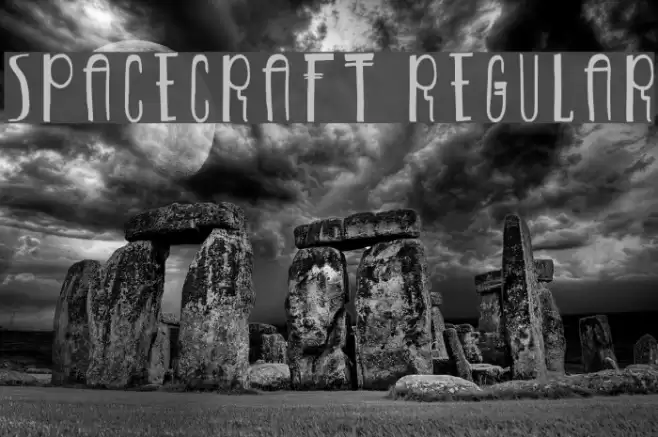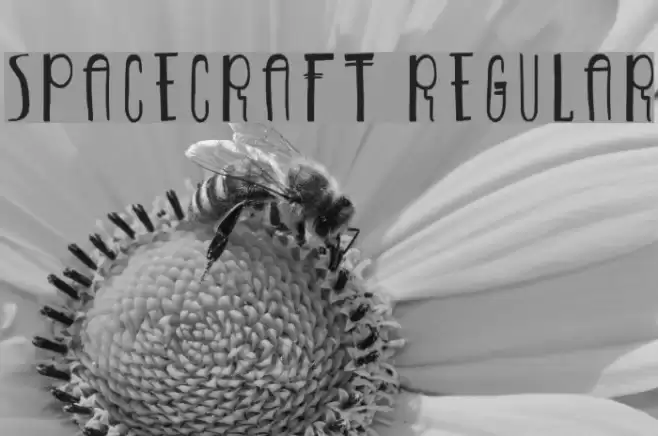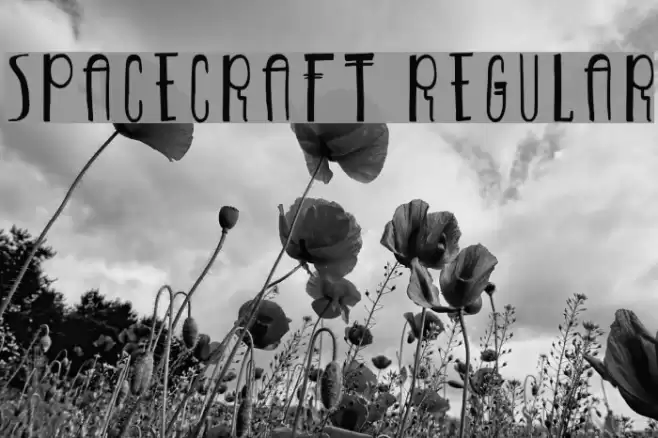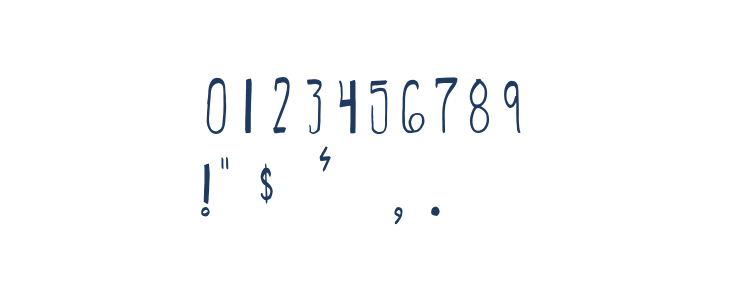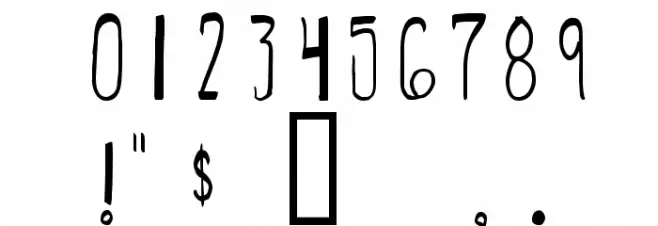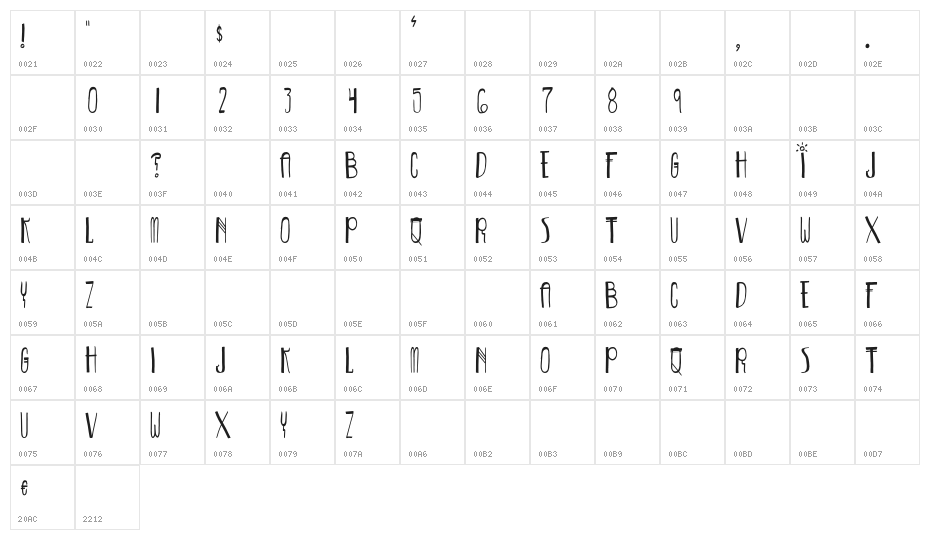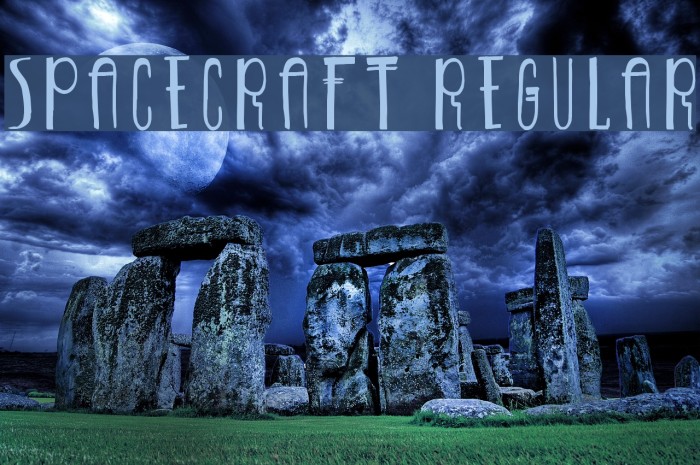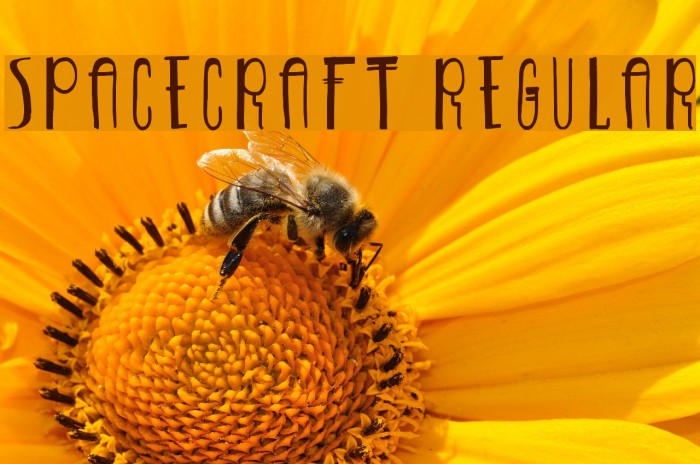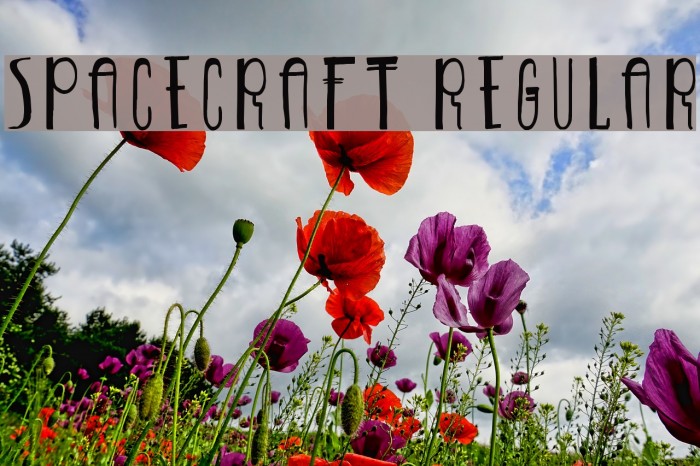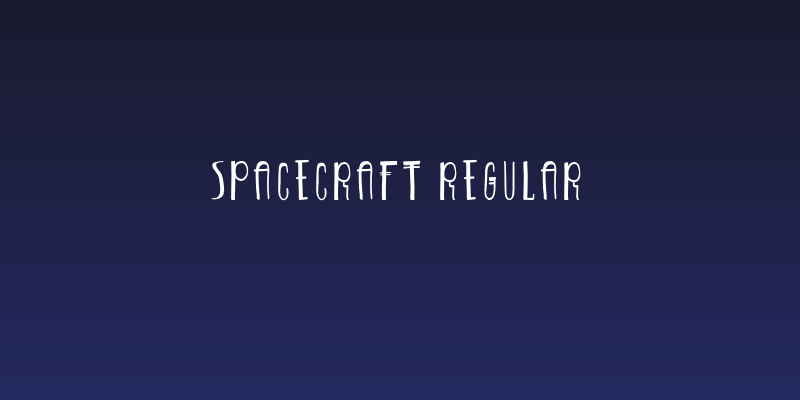
Spacecraft-Regular Font
Spacecraft-Regular Description
This font features a playful and whimsical design, characterized by its tall, narrow letters with uneven strokes and quirky details. The uppercase letters exhibit a unique blend of straight lines and subtle curves, while the lowercase letters maintain a consistent style that complements the uppercase. Numbers and special characters follow the same playful aesthetic, making the font suitable for creative and informal projects. The overall appearance is reminiscent of hand-drawn lettering, adding a personal touch to any design.
A playful, whimsical font with tall, narrow letters and quirky details from Uncategorized fonts.
- Proposed Projects: Ideal for children's books, creative posters, playful branding, and informal invitations.
- Overall Style: Whimsical, Playful